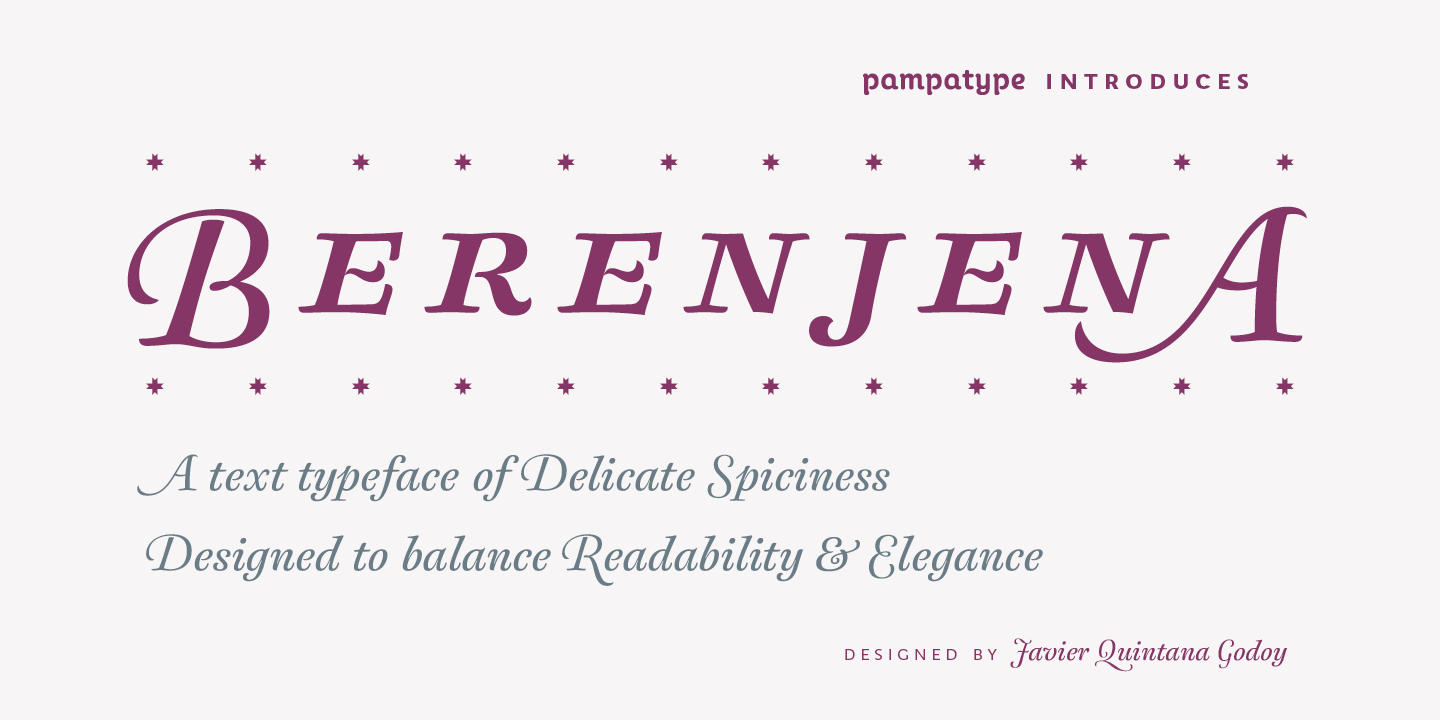
Berenjena
Berenjena is a serif font family. This typeface has eight styles and was published by PampaType.
Berenjena is a friendly typeface designed by Javier Quintana Godoy in Santiago de Chile.
It has the right combination of comfort in reading and a lyric spirit.
This helps keep readers in the delicate atmosphere in which novels and tales can display all their charm.
Berenjena (Spanish for aubergine or eggplant) gives your text that spicy environment in which words shapes are easy to read while letterforms maintain their capricious feeling.
It comes in roman and cursive declined in four weights: Blanca, Fina, Gris, Negra.
All Berenjena character sets include extensive diacritics coverage for more than 200 languages.
Berenjena Pro (only available at PampaType.com) include smalls caps, elegant ligatures, cute swashes, every kind of figures, and all contextual sorts.
Berenjena will give your design a very individual character.
It wears captivating details of calligraphic poetry which link subtlety to vernacular sign painting from Santiago de Chile.
Berenjena was prized at the Tipos Latinos 2012 biennale.
Berenjena is a friendly typeface designed by Javier Quintana Godoy in Santiago de Chile. It has the right combination of comfort in reading and a lyric spirit. This helps keep readers in the delicate atmosphere in which novels and tales can display all their charm.
Berenjena (Spanish for aubergine or eggplant) gives your text that spicy environment in which words shapes are easy to read while letterforms maintain their capricious feeling. It comes in roman and cursive declined in four weights: Blanca, Fina, Gris, Negra. All Berenjena character sets include extensive diacritics coverage for more than 200 languages.
Berenjena Pro (only available at PampaType.com) include smalls caps, elegant ligatures, cute swashes, every kind of figures, and all contextual sorts.
Berenjena will give your design a very individual character. It wears captivating details of calligraphic poetry which link subtlety to vernacular sign painting from Santiago de Chile.
Berenjena was prized at the Tipos Latinos 2012 biennale.